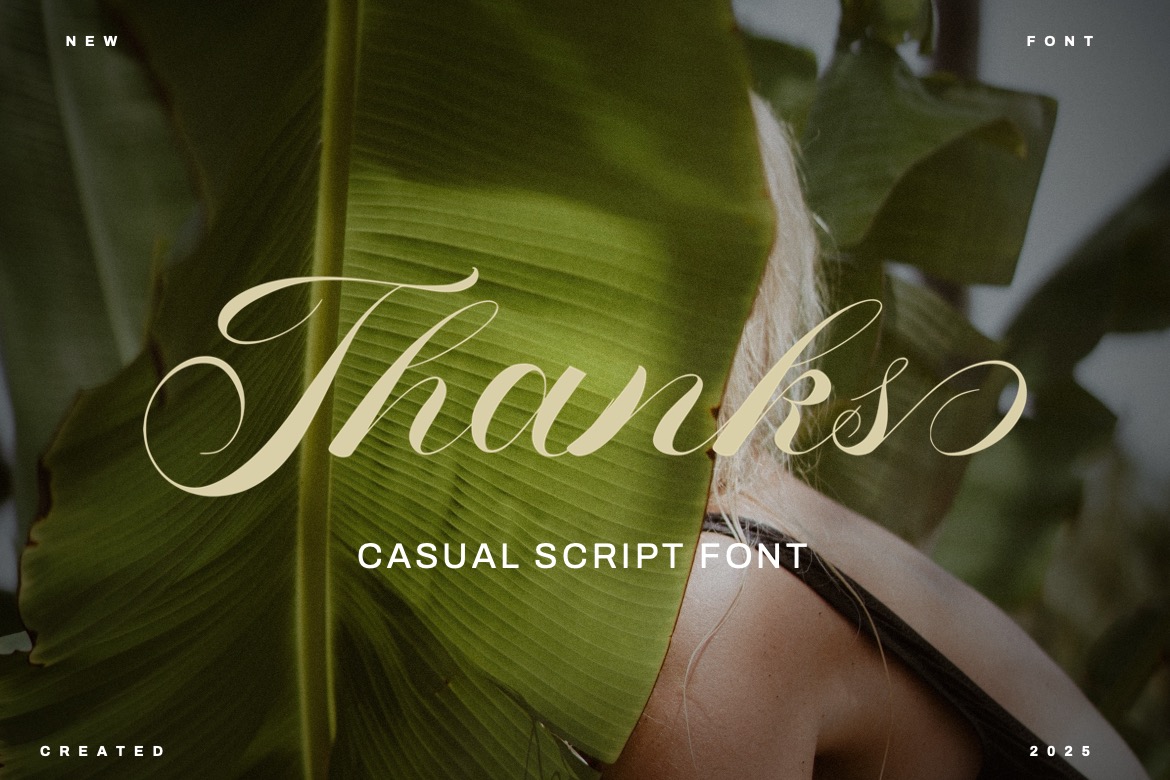
Choosing a script font often comes down to one question: do you want the warmth of handwriting without sacrificing a polished, premium feel? Fopheras is a casual script typeface by Dhabee that leans elegant—built around sweeping capitals, high-contrast strokes, and smooth, flowing connections that instantly lift short phrases and names.
Fopheras is a strong pick when you need a “signature” presence—think brand marks, product labels, boutique packaging, invitations, wedding stationery, quotes, headers, and social media titles. It performs best at medium to large sizes, where the thin hairlines and long entry/exit strokes stay crisp and intentional. In OpenType-aware apps, you can also take advantage of ligatures and alternate letterforms to refine tricky letter pairings and keep repeated characters from looking identical.
It’s not the best option when clarity is the priority. Avoid Fopheras for long paragraphs, small UI text, dense captions, or any layout that must remain highly legible at a glance. The dramatic swashes and contrast can also become fragile in tiny print, low-resolution output, embroidery, or tight spaces where flourishes may collide.
Stylistically, Fopheras sits between formal calligraphy and relaxed handwriting: more refined than playful, bouncy scripts, yet softer and more personal than strict, ceremonial penmanship. The overall result feels romantic, classic, and slightly dramatic—made to be seen, not skimmed.
If your design needs an elegant handwritten spotlight for names, titles, or branding moments, Fopheras is an easy yes. Just reserve it for display use, pair it with clean supporting text, and keep in mind the license: free for personal use.